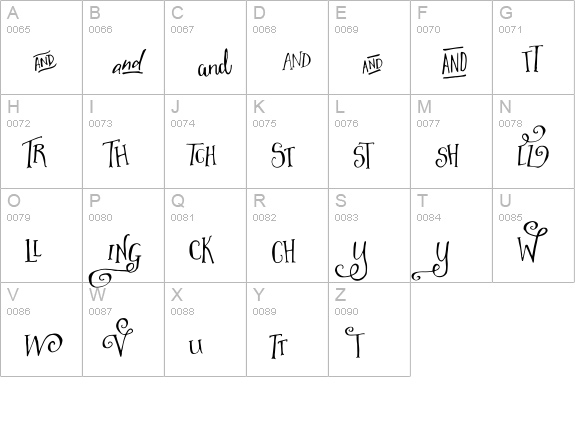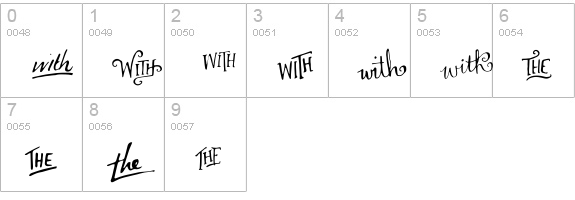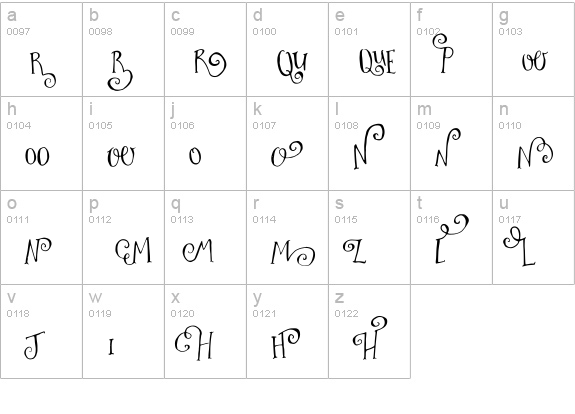
VanillaFrosting_Extras Font Details
VanillaFrosting_Extras font is a whimsical and charming typeface that adds a touch of sweetness to any project. With its delicate swirls and playful shapes, this font is perfect for creating eye-catching designs that stand out. The collection of extras includes a variety of decorative elements such as hearts, stars, and flourishes, allowing you to customize your designs with ease. Best of all, VanillaFrosting_Extras font is available for free download at FontsMarket.com. This means you can easily access this delightful font and start using it in your projects right away. Whether you're working on invitations, greeting cards, or branding materials, VanillaFrosting_Extras font is sure to bring a touch of magic to your designs. Download it today and let your creativity shine!